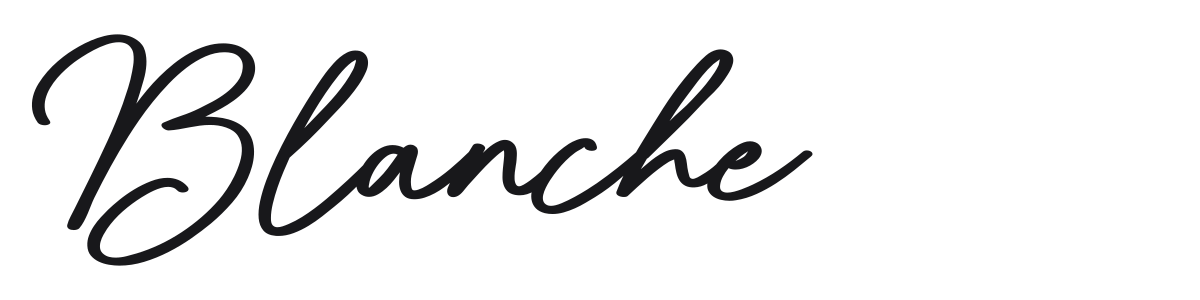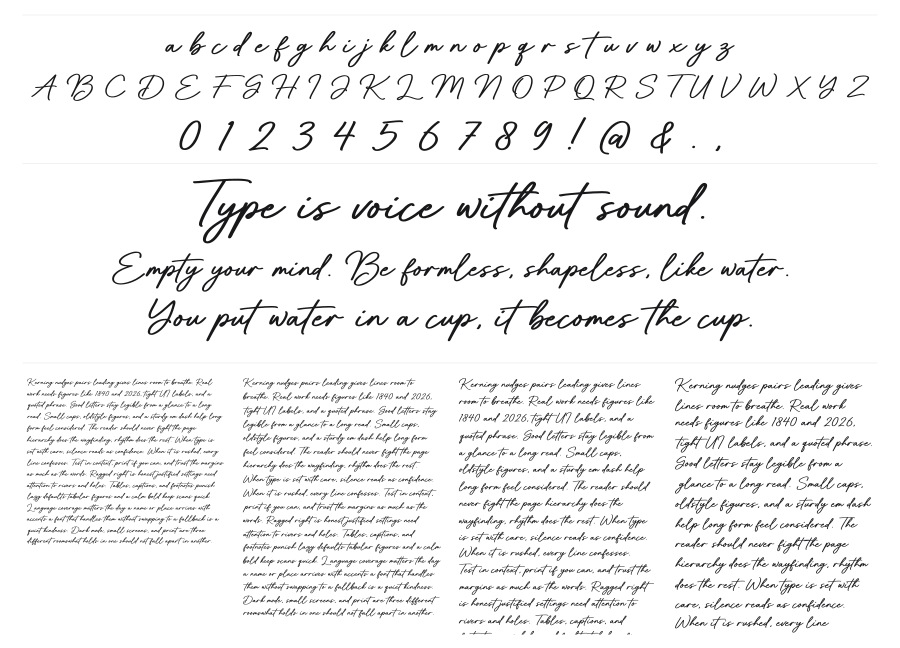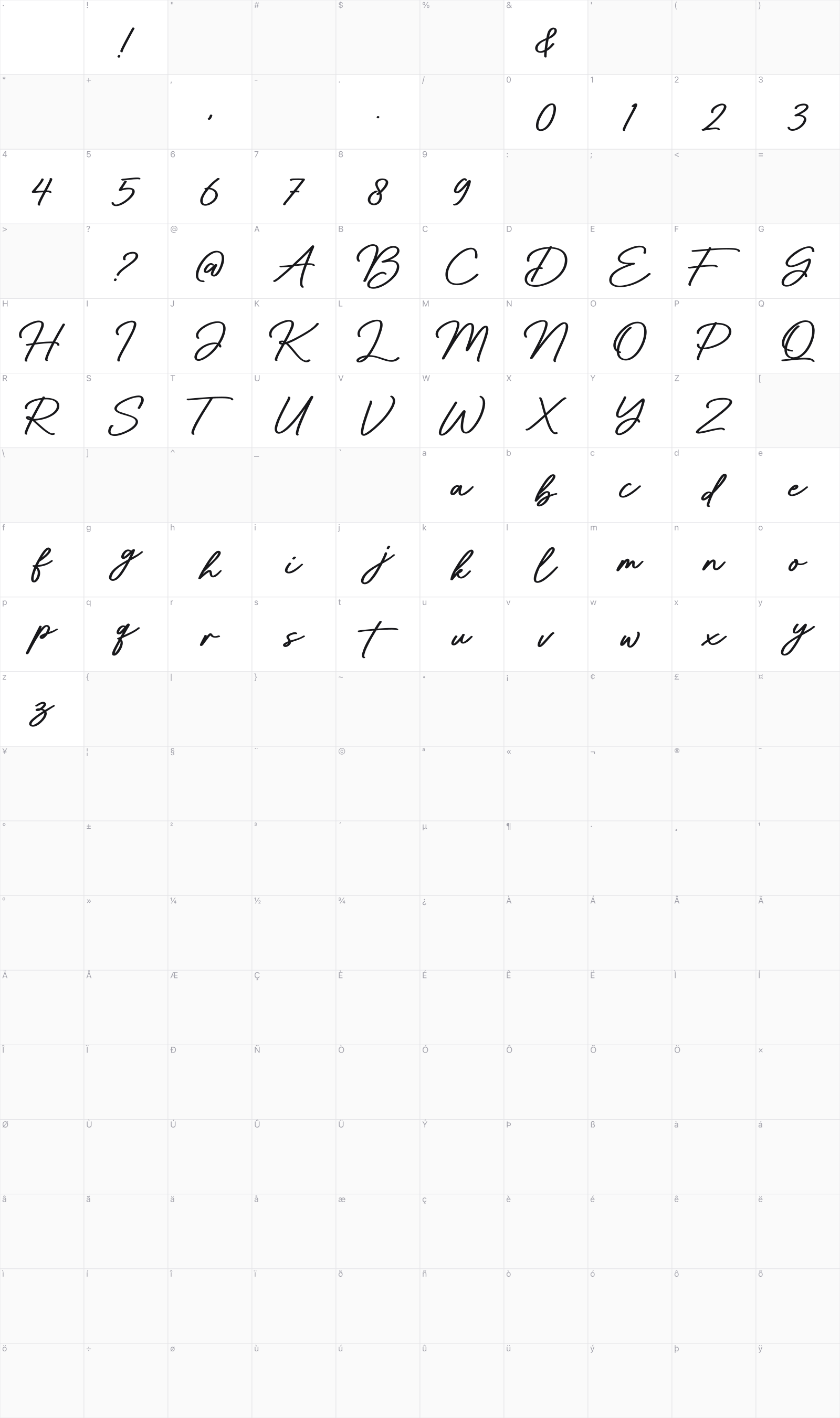
Blanche
Blanche is a contemporary casual script with flowing connected strokes and a natural, pen-driven rhythm. Moderate stroke contrast and lively baseline movement give it an energetic handwritten quality without feeling rushed or sloppy. It works well in branding, packaging, and editorial headlines where a relaxed personal touch is needed.